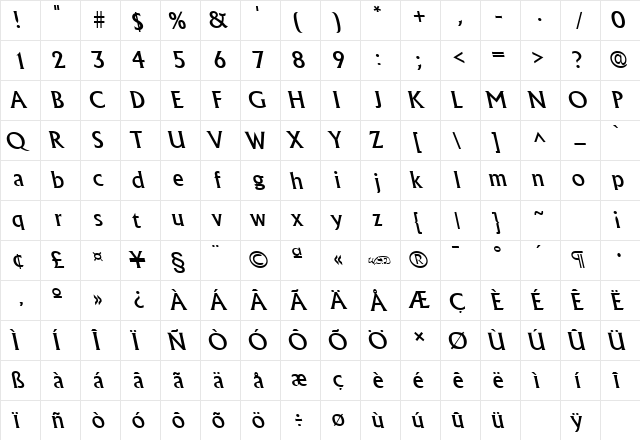
AlbertaBackslant Regular
Design Context for AlbertaBackslant Typeface
AlbertaBackslant takes a measured approach to typography — its balanced proportions and neutral character make it a reliable workhorse for both digital and print work.